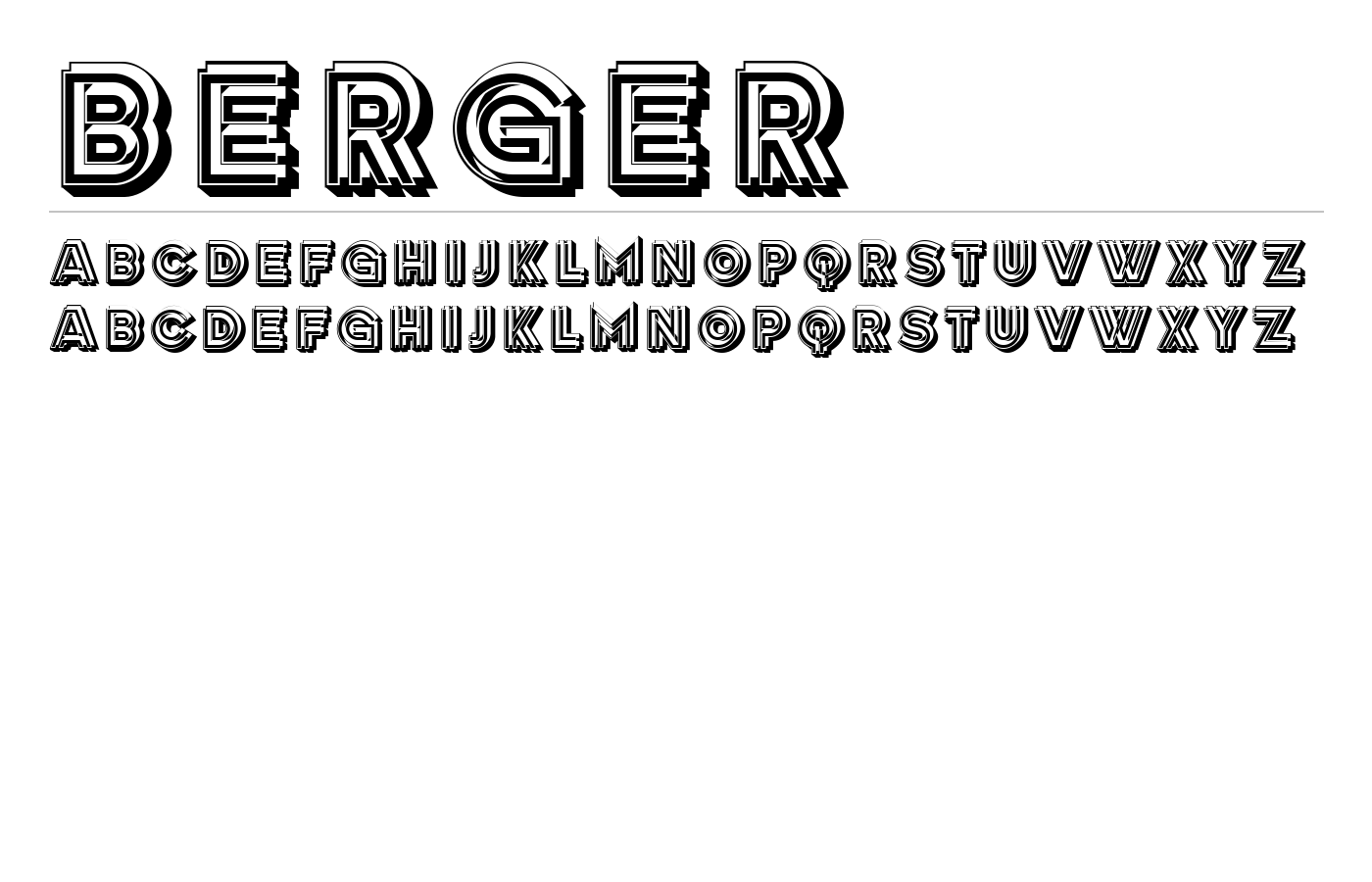
Berger is a bold, decorative sans serif display font with a striking layered, shadowed effect that adds depth and visual interest. Its uppercase letterforms are geometric yet playful, perfect for eye-catching headlines, logos, and posters where a vintage or retro style vibe is desired. This font works best in creative branding and editorial designs that seek to convey energy and uniqueness.
Berger Font
About Berger Font
| Font family | Berger Font |